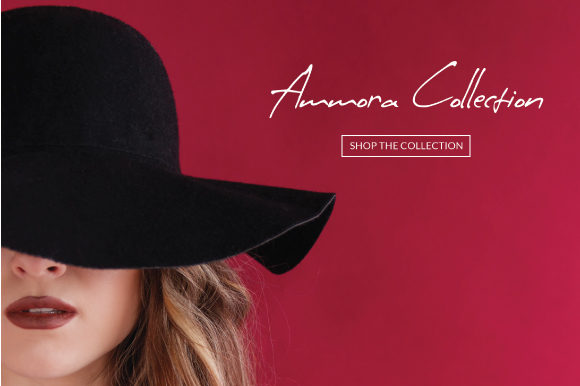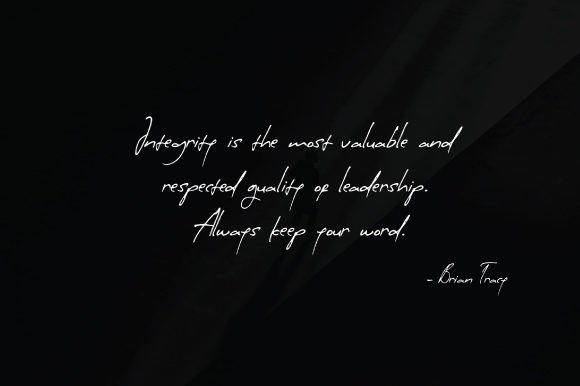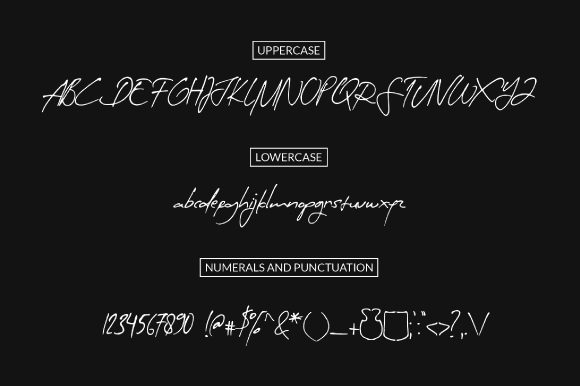
Theodore Font
About Theodore Font
Theodore combines natural letters and contemporary elegance, making it the ideal font for any design project in need of a handwritten feel.